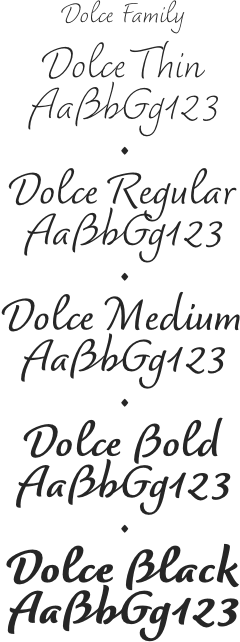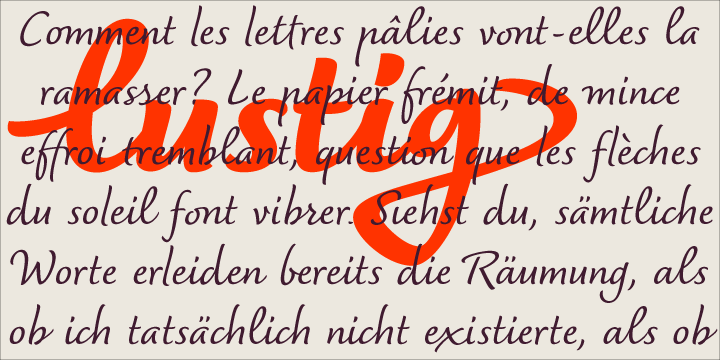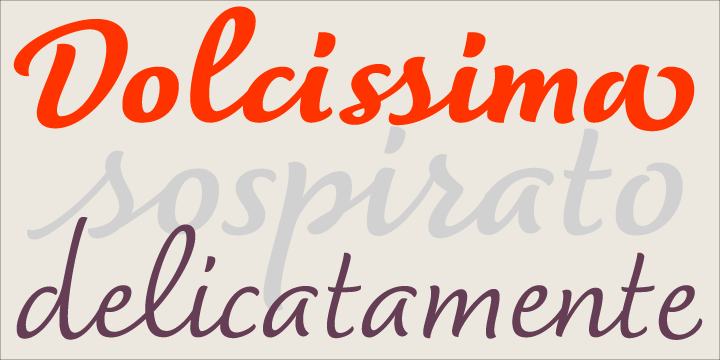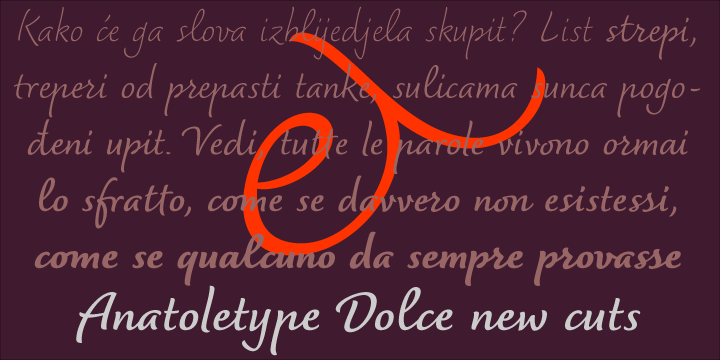
Dolce Family (5 fonts) (Anatoletype)
About Anatoletype
Based in Berlin, Anatoletype was founded by Elena Albertoni and Pascal Duez in 2005. FontHaus is pleased to represent and present the premium type designs of this foundry.ELENA ALBERTONI: Elena is an Italian-born type designer living in Berlin. She studied graphic and type design in Amiens and Paris, France. She later joined LucasFonts and worked in Luc(as) de Groot’s studios to perfect her type designing and programming skills.
PASCAL DUEZ: French Graphic Designer, he studied at the Amiens ESAD. He's currently running the DZLV studio, (Paris, Brussels, Berlin) and working as a freelancer between Berlin and Paris.
Dolce is the next step in Elena Albertoni's ongoing exploration of handwritten letterforms that started with her typefaces Dyna and Scritta.It is an attempt to arrive at a more naturally flowing type of handwriting, striking a balance between the orderly and the informal, while taking a critical look at the possibilities and limits of OpenType.